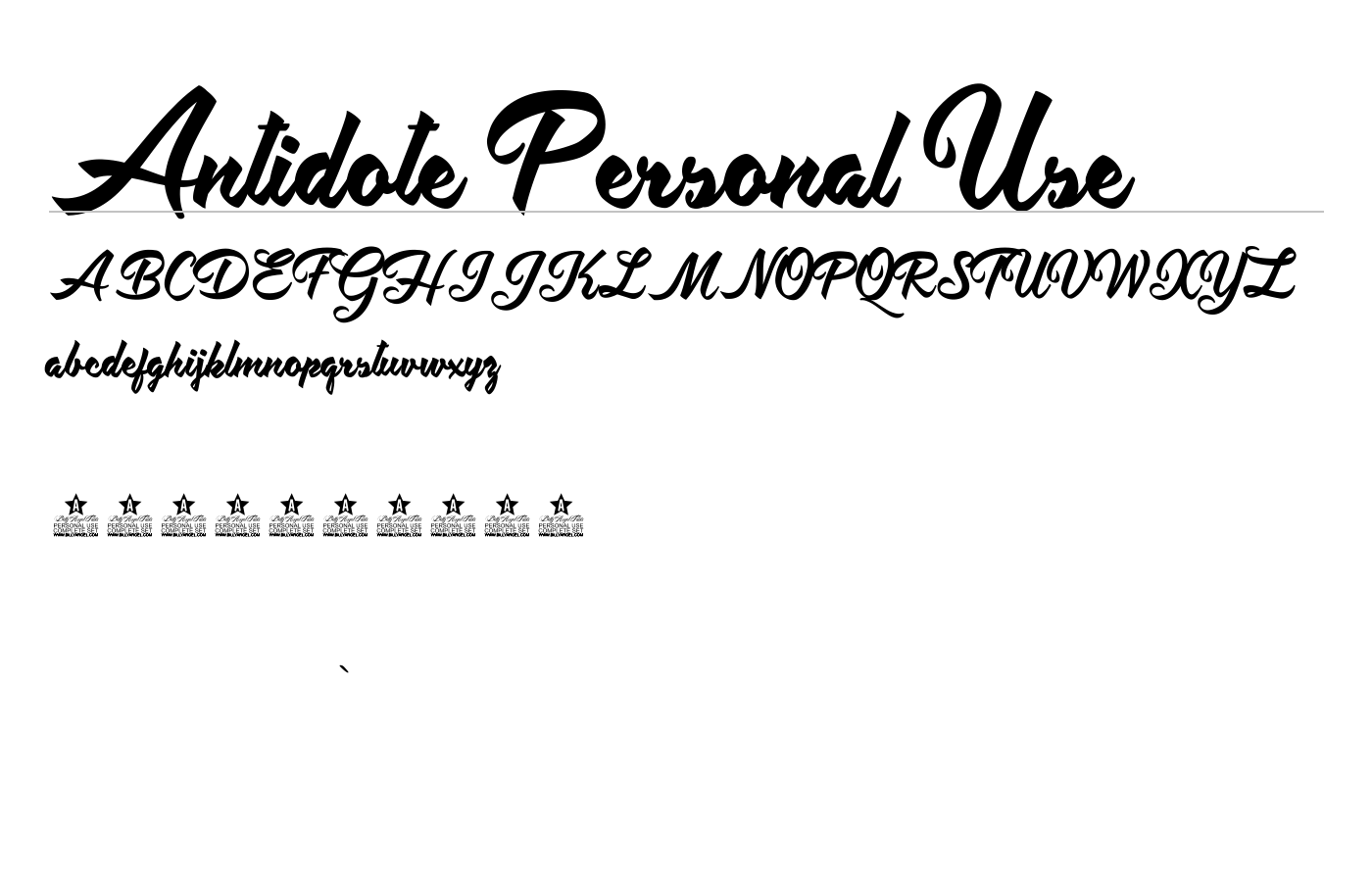
Antidote Personal Use is a stylish script font with a bold and flowing character, featuring smooth, calligraphic strokes and a confident sense of movement. Its elegant uppercase letters and compact lowercase forms make it perfect for designs that need a touch of sophistication and personality, such as branding, invitations, or headlines. This font brings a classic, handwritten charm that works well where a warm, artistic feel is desired.
Antidote Personal Use Font
About Antidote Personal Use Font
| Font family | Antidote Personal Use Font |